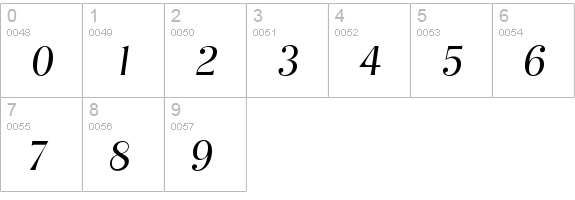
Introducing Nashville-LightIta font, a sleek and elegant typeface designed to bring a touch of sophistication to your projects. This modern and versatile font features a delicate italic style that exudes a sense of refinement and class. Perfect for adding a stylish flair to any design, from branding to editorial layouts. Not only does Nashville-LightIta font offer a clean and contemporary look, but it is also available for free download at FontsMarket.com. This means you can easily access this high-quality font without any cost, making it a valuable addition to your font library. Don't miss out on the opportunity to elevate your designs with the Nashville-LightIta font today!